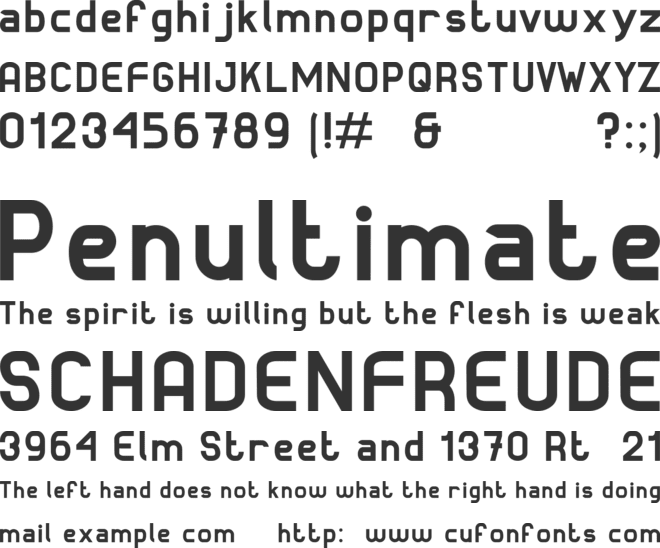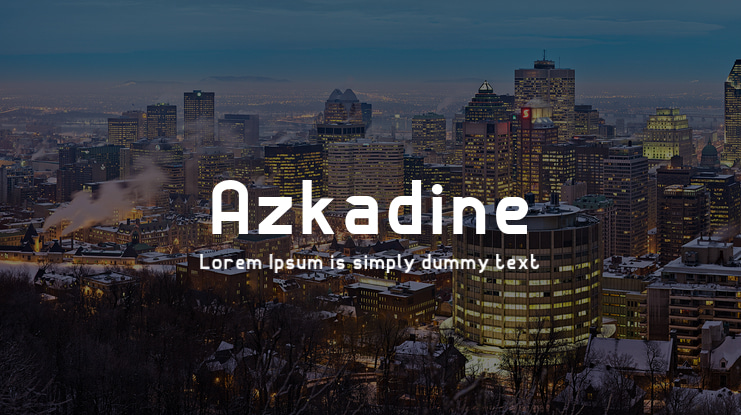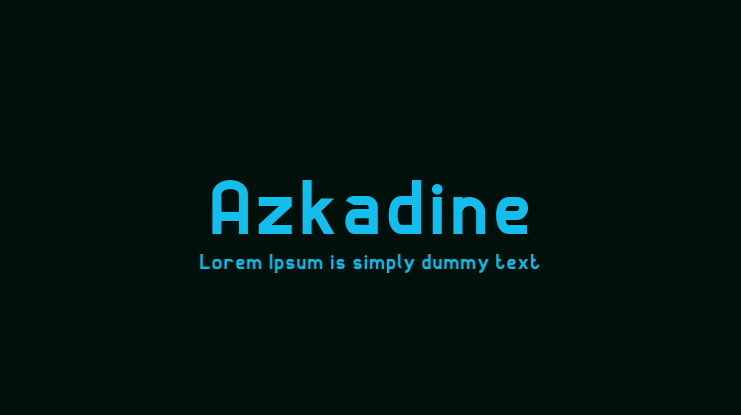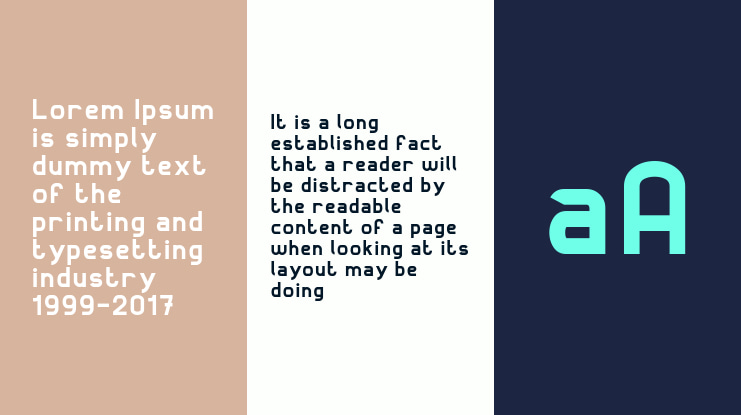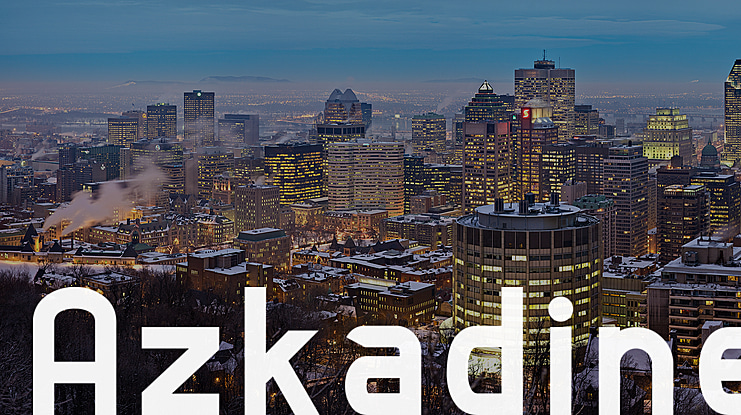
Azkadine Font
This is a sans based font inspired by the modern world, the Brink font appears with an extra expanded style combined with geometric letterforms. Perfect for creating logos, greeting cards, posters, packaging and so much more! It’s charming and warm character will help you give your project a truly unique feel.
Designed and kerned with care and love to make using it a breeze.